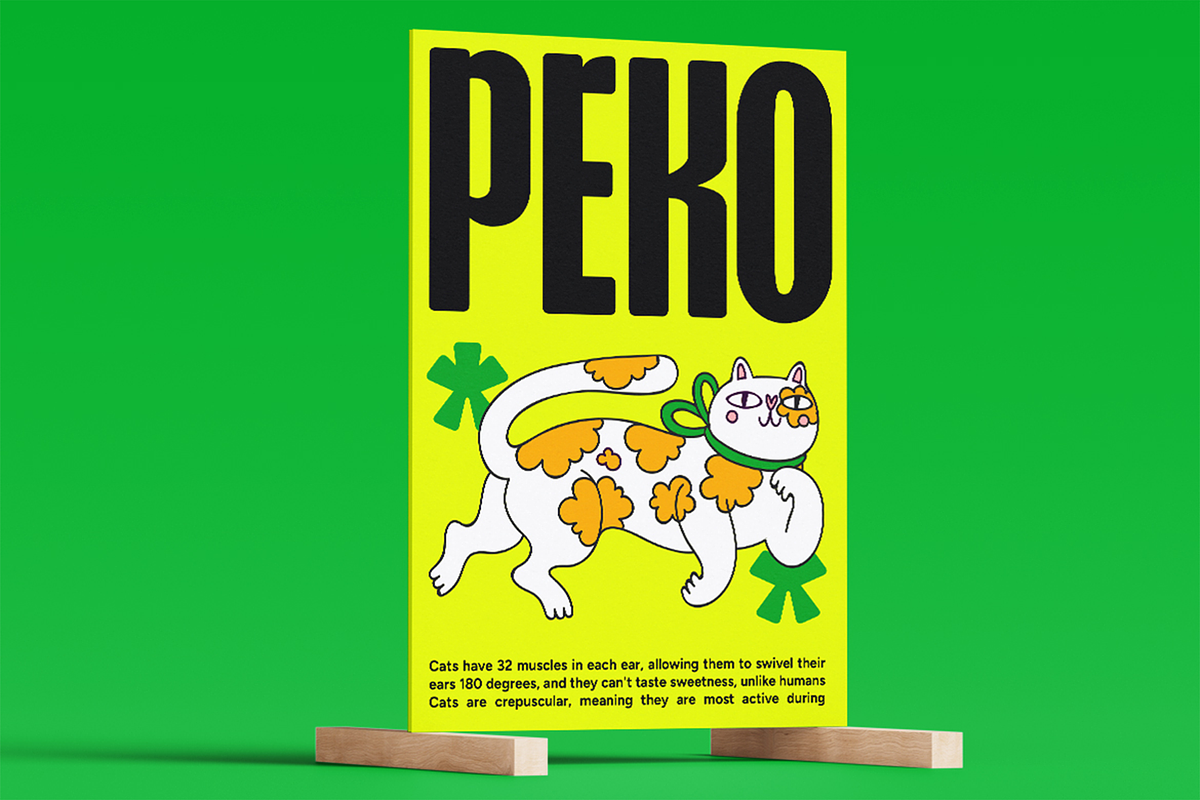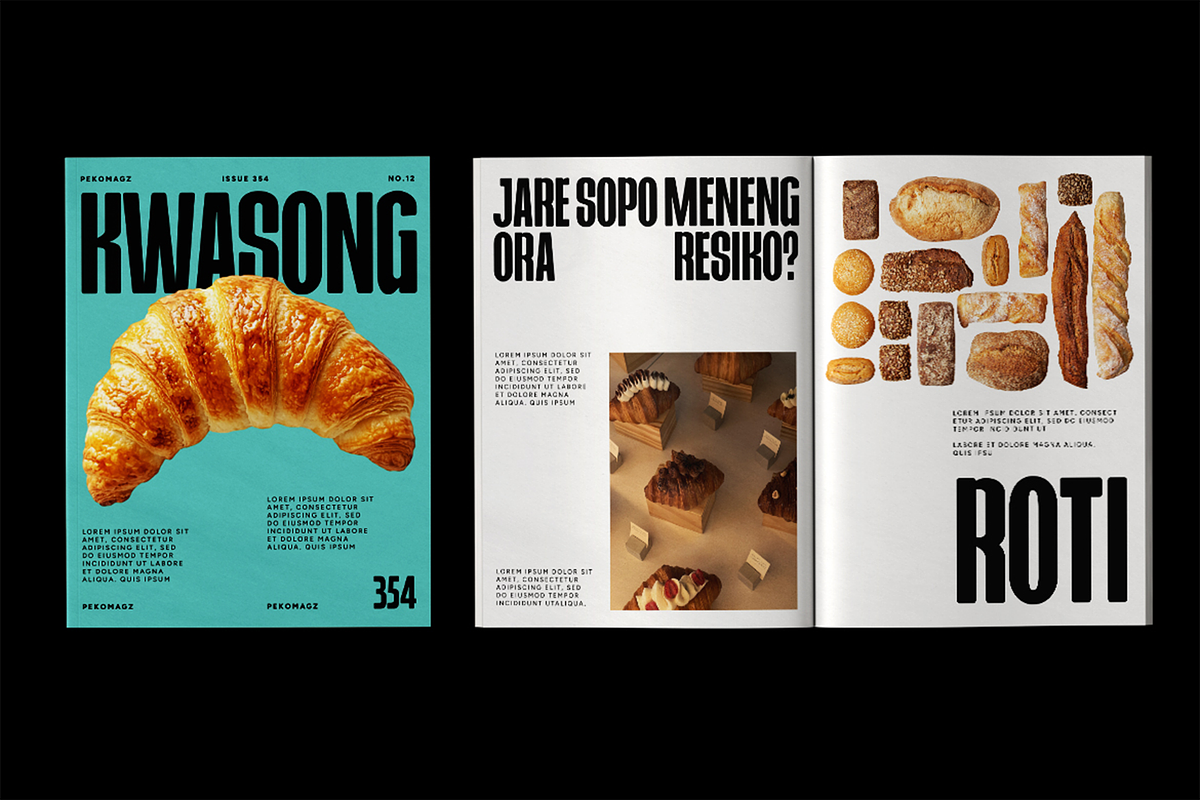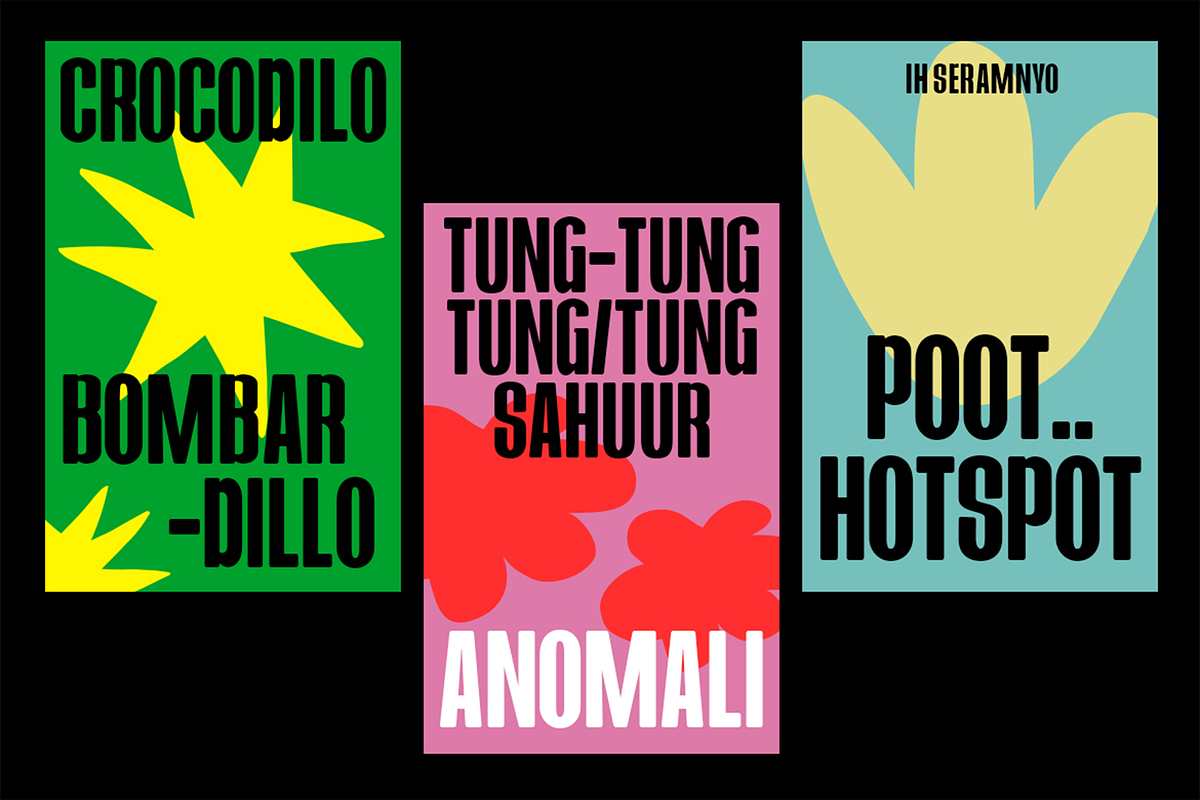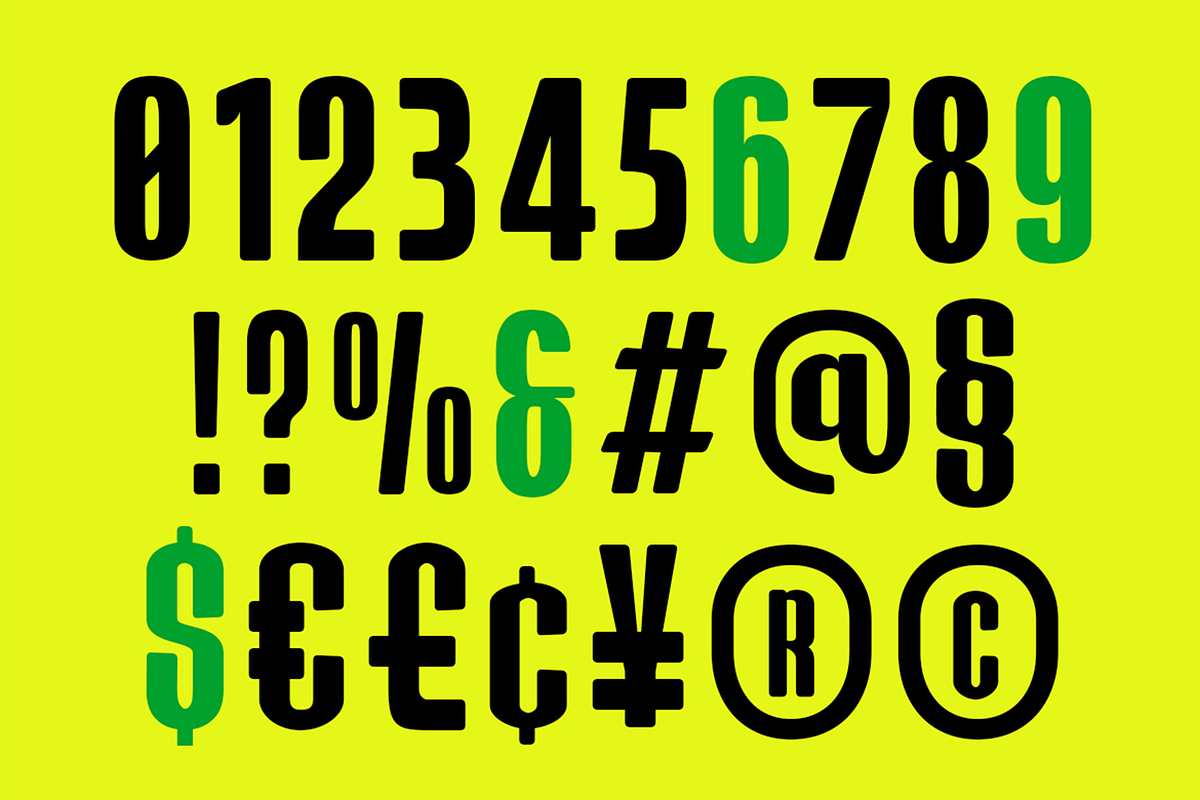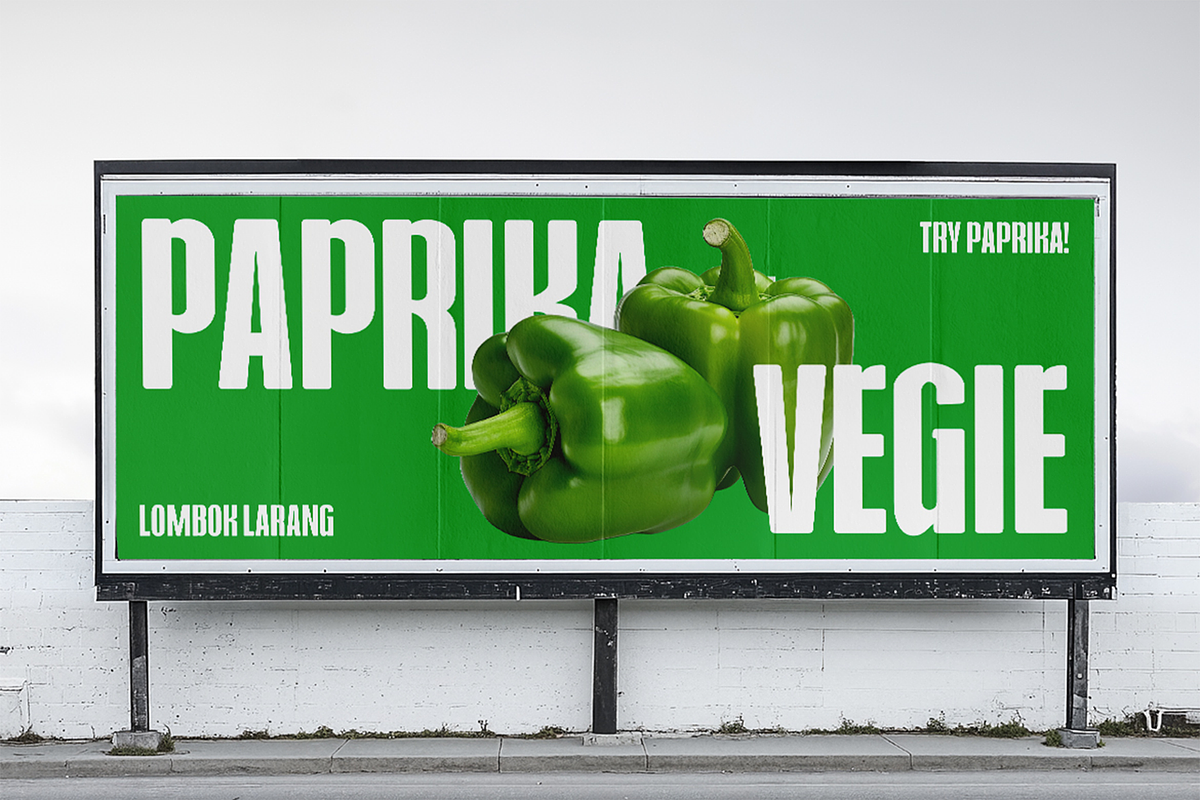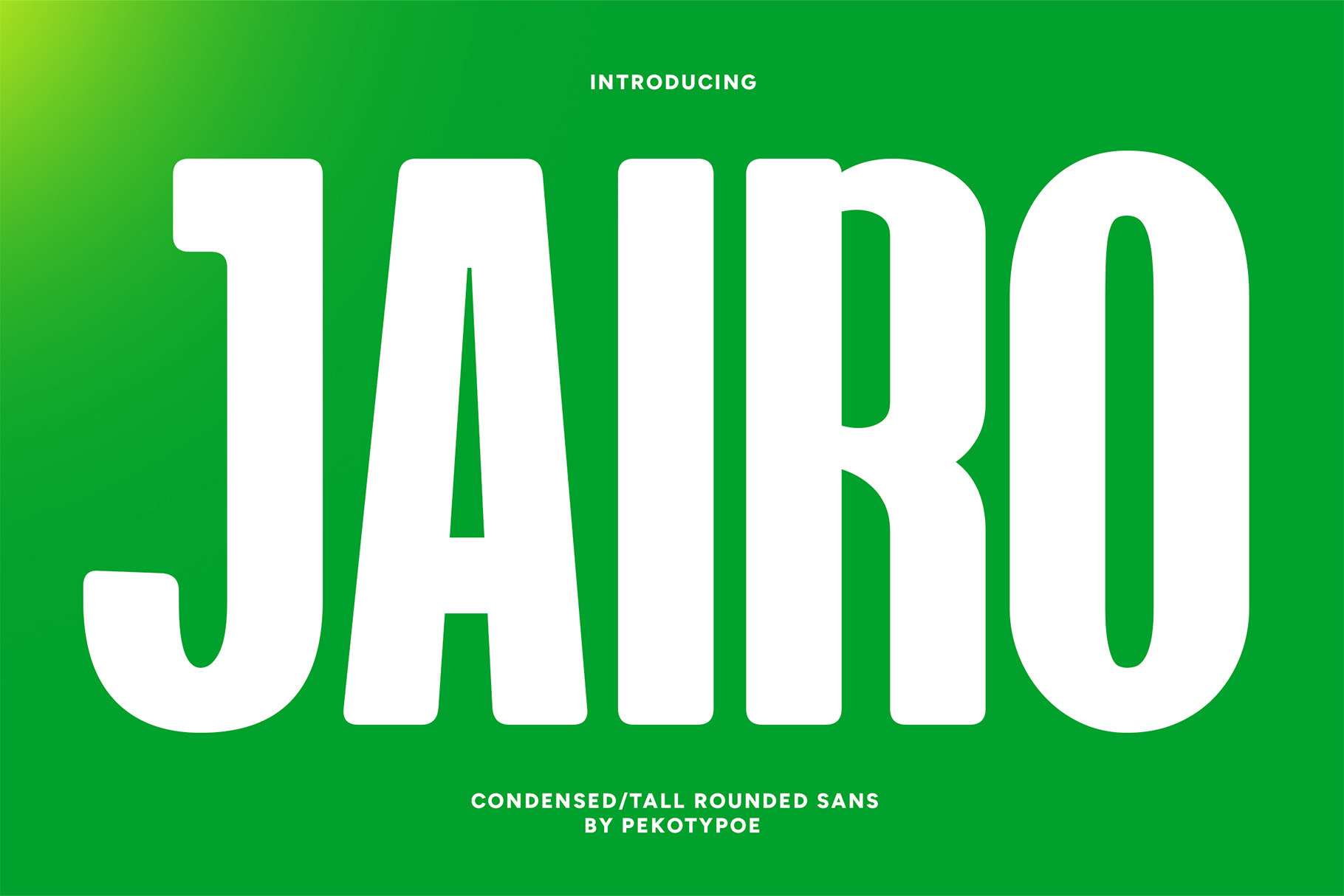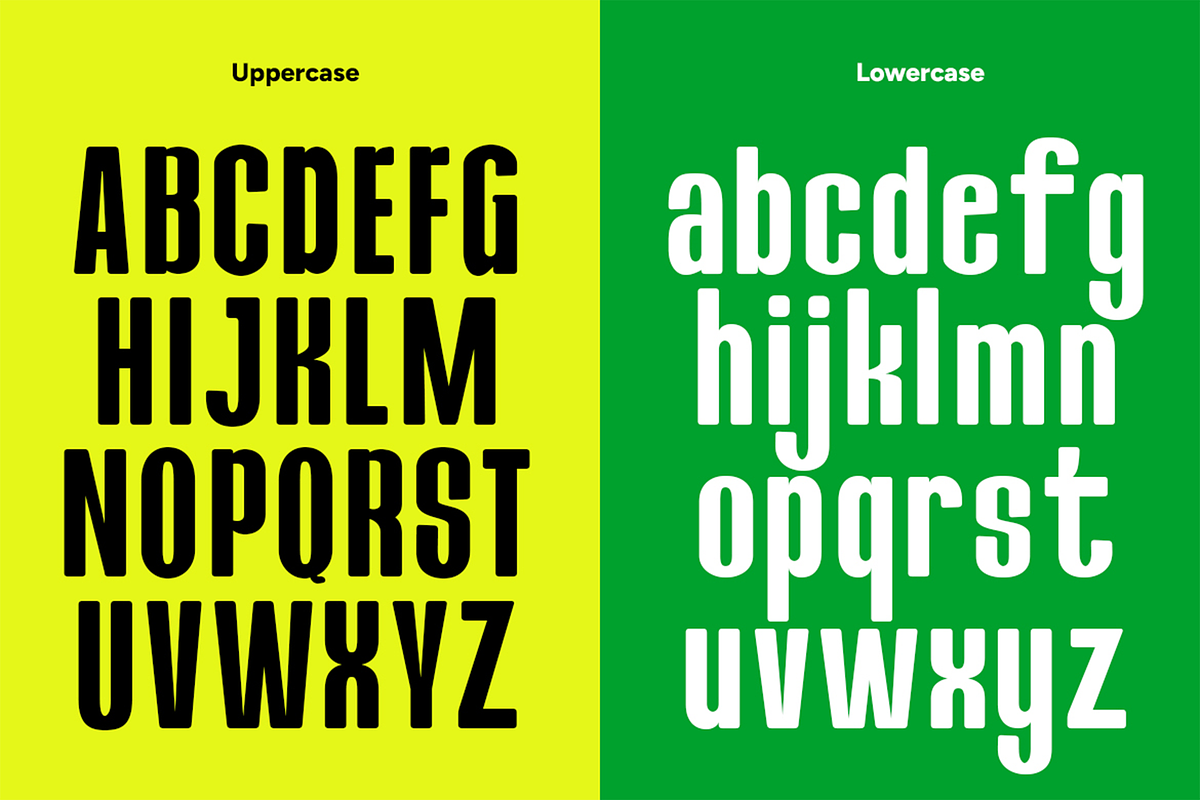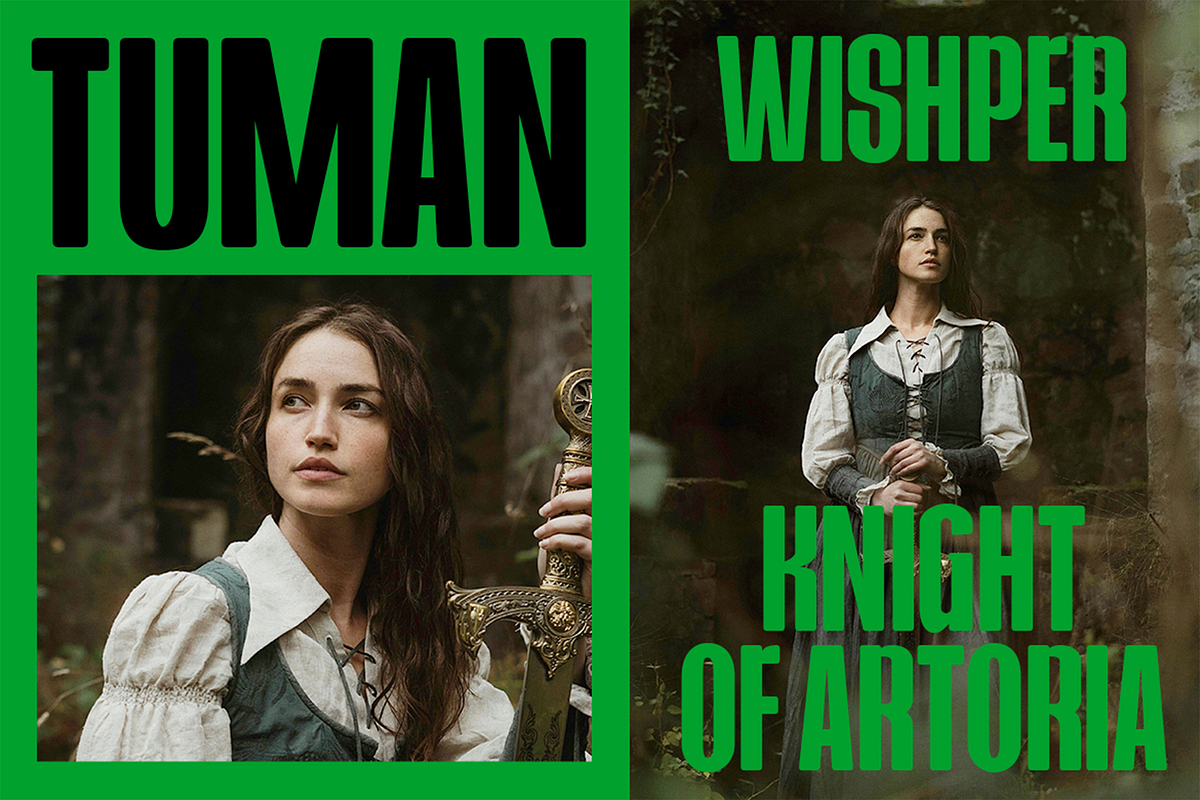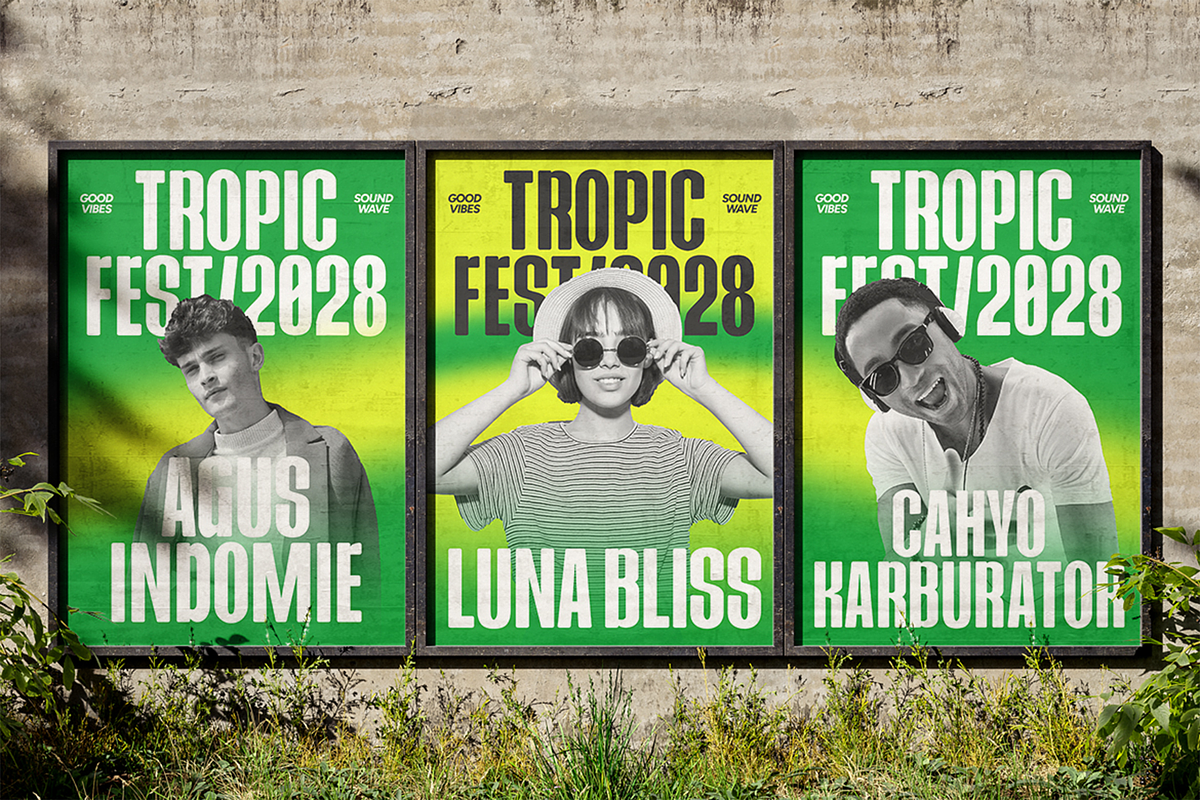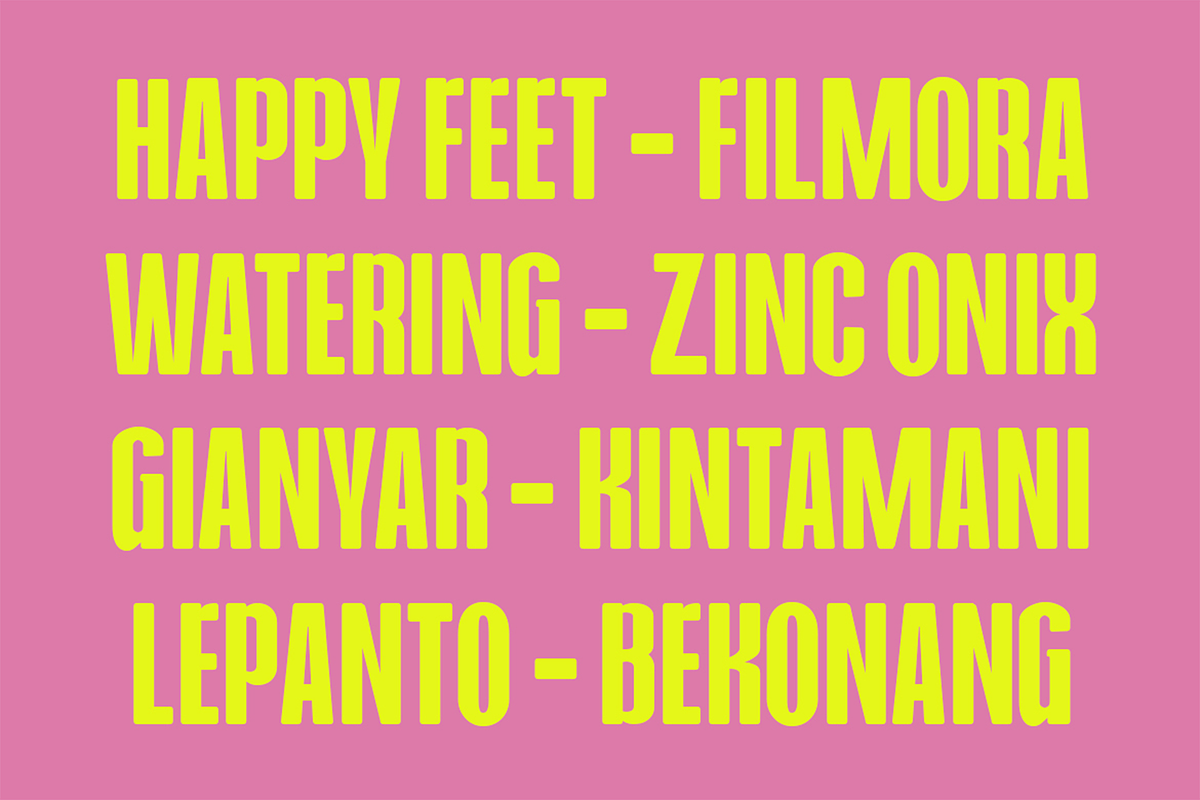
Jairo - Condensed Rounded Font
JAIRO – Tall, Bold & Modern Condensed Font for the New Era
Introducing JAIRO, a tall, bold, condensed rounded display font designed to make a powerful statement with minimal effort. With its modern, clean, and minimalist aesthetic, JAIRO is built for today’s bold design trends—perfectly fitting for high-impact branding, eye-catching logos, film titles, editorial layouts, promotional materials, and social media content.
JAIRO combines sleek proportions with rounded corners, creating a font that feels confident yet friendly, strong yet stylish. Whether crafting a cinematic poster, building a standout brand identity, or elevating your design portfolio, JAIRO brings the perfect blend of clarity, presence, and modern sophistication.
- Minimalist and modern style
- Ideal for headlines, branding, film, posters, packaging, and digital content